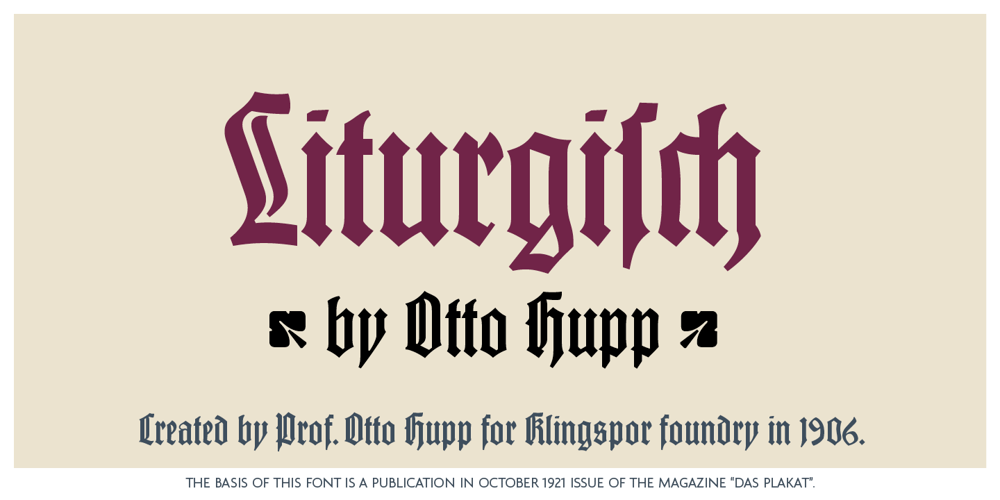
Liturgisch Font Family was designed by Otto Hupp, Kristians Šics and published by Lamatas un Slazdi. Liturgisch contains 1 styles and family package options. Liturgisch was created by Otto Hupp for Klingspor foundry in 1906. The basis of this font is a publication in the magazine “Das Plakat” of October 1921. The font contains contextual alternates, ligatures, discretional ligatures for use in German, ornamental bullets and other OpenType features. It supports all the European languages using Latin alphabets (including slashed S and slashed longs used in Latvian old orthography till 1930s).